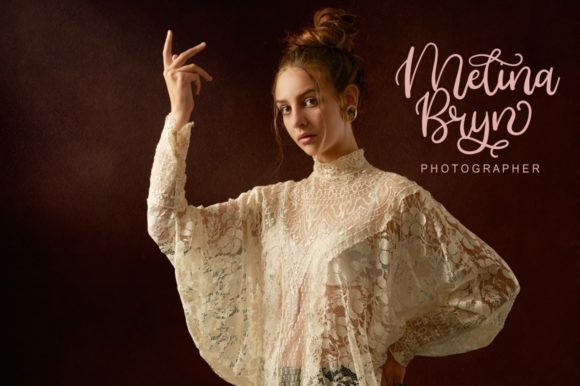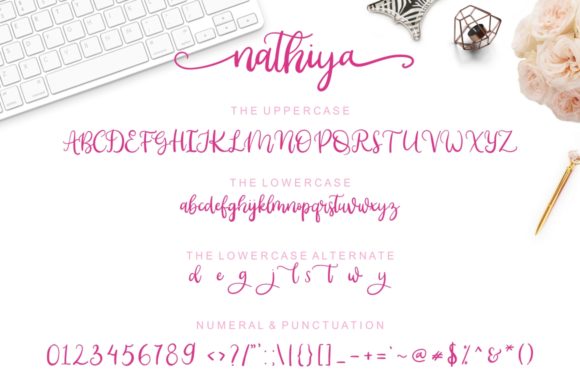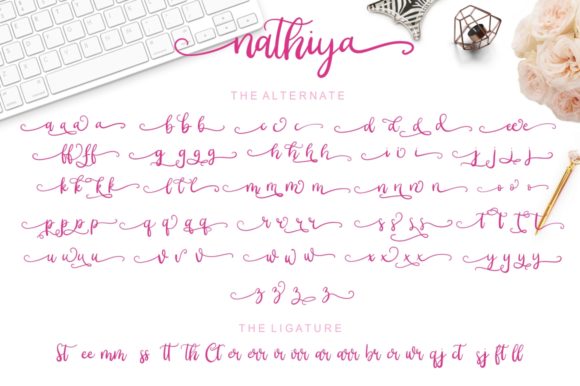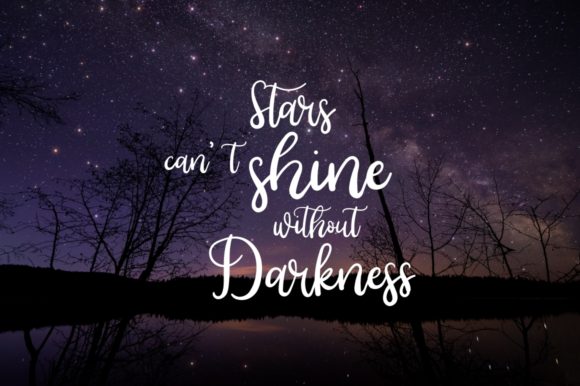
About Nathiya Font
Nathiya is a delicate and elegant handwritten font. Its distinct and well rounded letters make this font a masterpiece. Fall in love with its incredibly versatile style and use it to create spectacular designs!